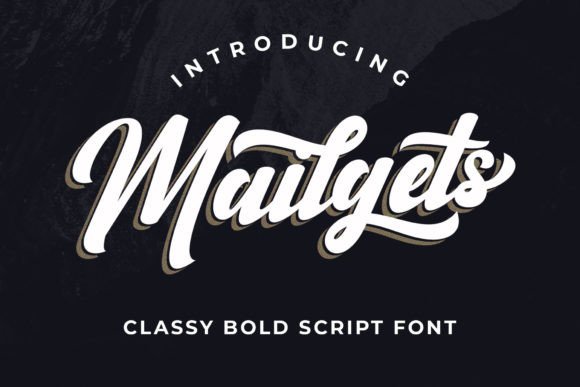
Step into a world of elegance and sophistication with Mailgets Font, the ultimate script font designed to captivate and inspire. This modern and bold creation by MJB Letters seamlessly blends the allure of contemporary fashion with the charm of vintage aesthetics, resulting in a visual masterpiece that will elevate your designs to new heights.
Unleash your creativity and explore the boundless possibilities that await you with Mailgets Font. Its meticulously crafted characters, brimming with authenticity, will transform your words into captivating expressions of art. Let your imagination soar as you design logos that exude timeless appeal, branding that radiates sophistication, marketing materials that ignite curiosity, and posters that leave an unforgettable impression.
Indulge in the versatility of Mailgets Font, a font that effortlessly adapts to a myriad of design endeavors. Whether you seek to create packaging designs that command attention or vintage designs that evoke a sense of nostalgia, Mailgets Font is your trusted companion, guiding you towards design excellence.
Experience the allure of Mailgets Font today and embark on a creative journey like no other. Let its bold strokes and enchanting curves elevate your designs, captivating audiences with their timeless elegance. Embrace the power of Mailgets Font and transform your creative vision into a reality that resonates with hearts and minds.